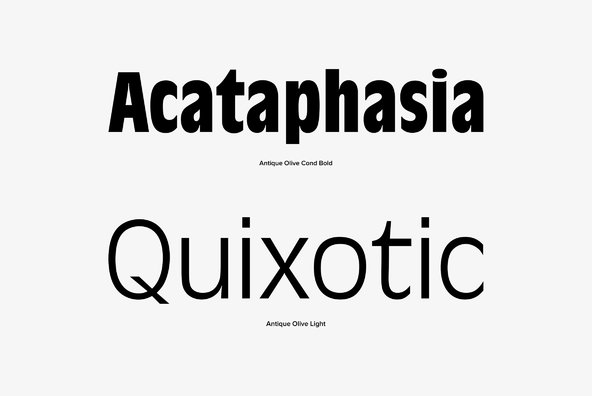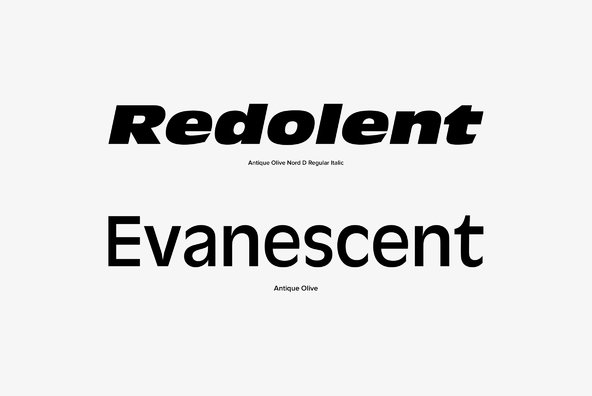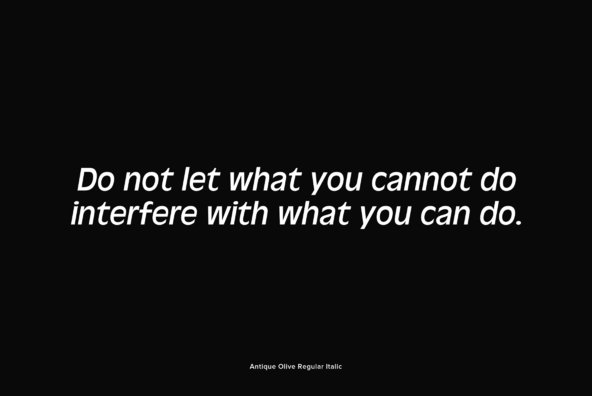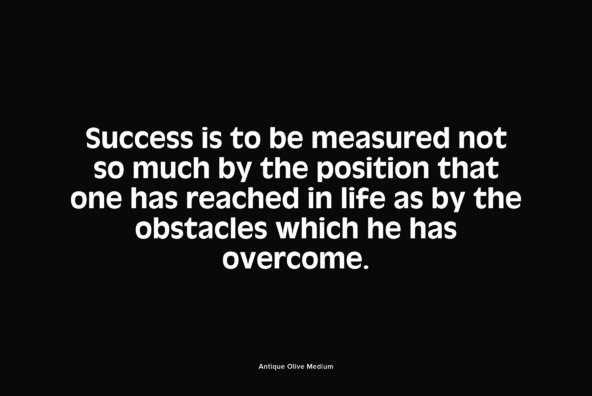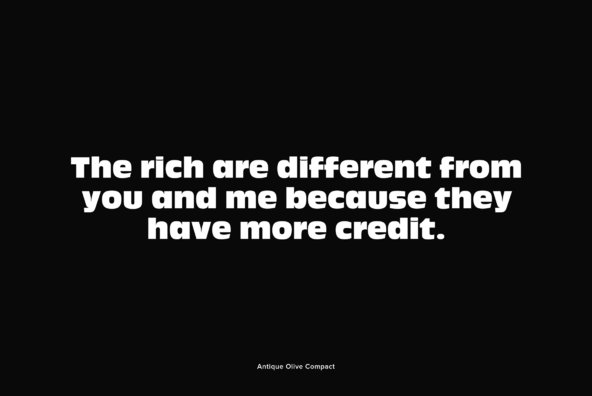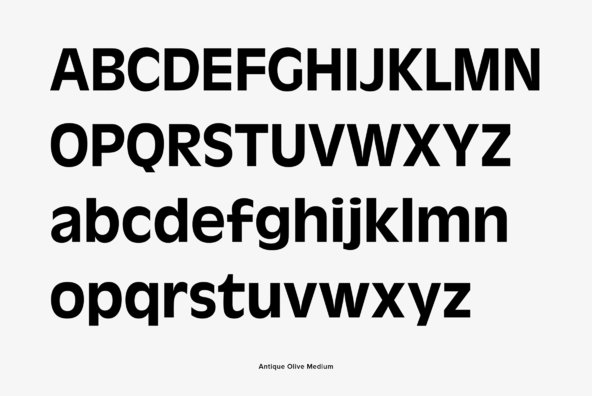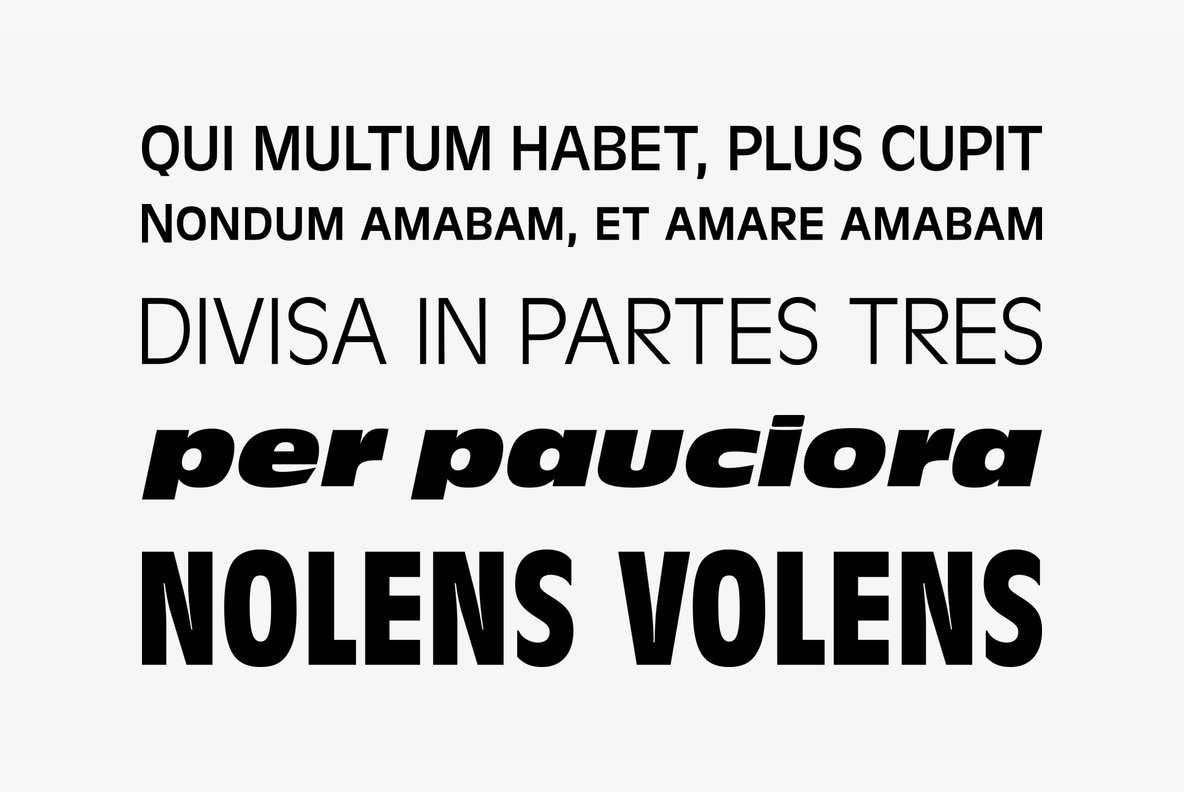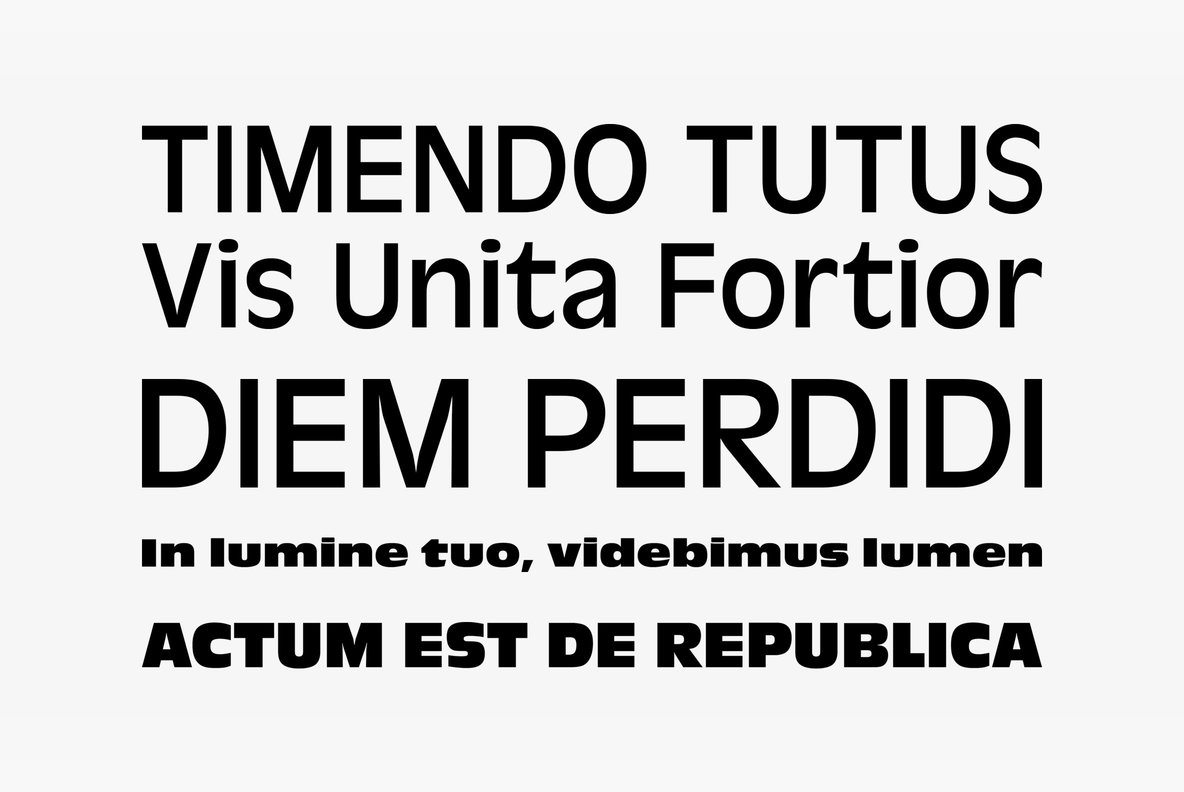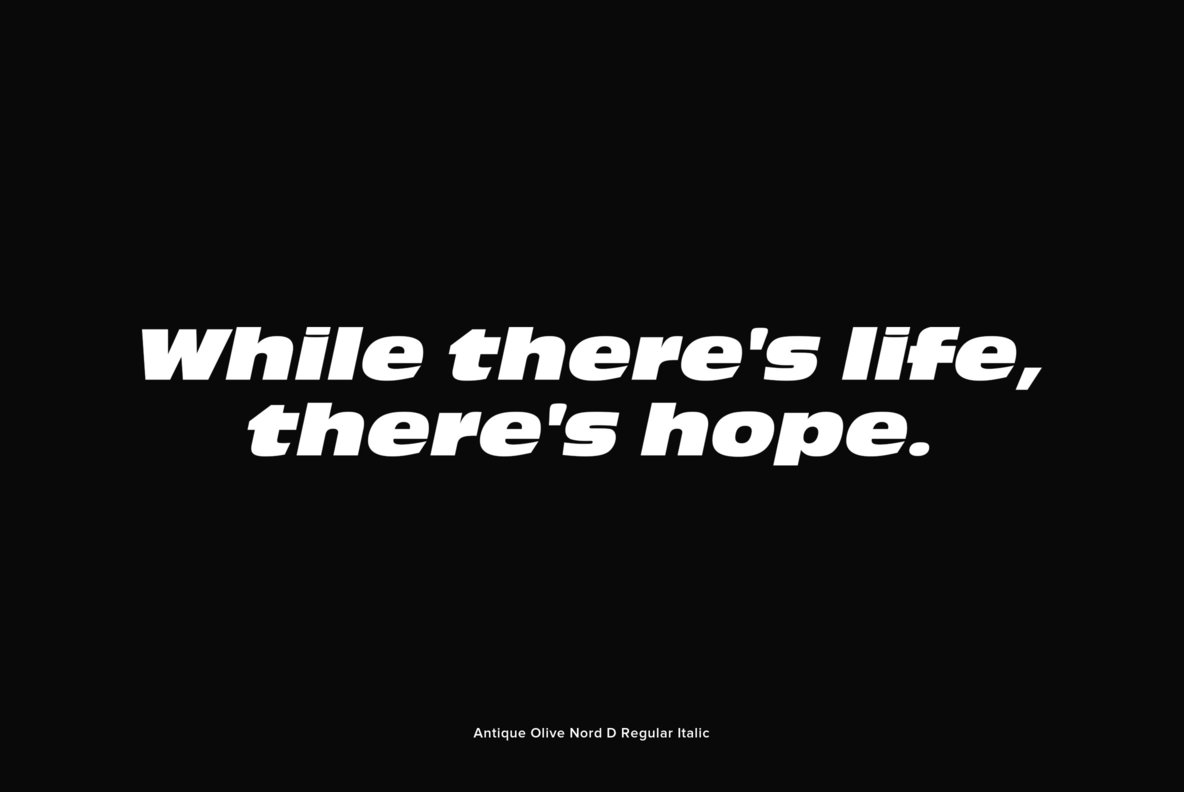
Antique Olive
Antique Olive, designed by Roger Excoffon in 1962 for the French Olive type foundry, was meant to be the French answer to Helvetica and Univers. However, the typeface is way too eccentric and distinctive to ever become a rival for Helvetica and Univers or any other neutral and versatile linear sans serif. Its x-height is very large, and there is plenty of contrast where curves meet stems. On top of that, the 's' seems to be upside down. These distinctive details make Antique Olive quite different from any pure linear sans serif. Sans Serif translates to Antique in French and so the name Antique Olive was found. Excoffon designed a new logo for Air France back then, and the lettering formed the basis for the complete Antique Olive typeface design. Antique Olive is still quite popular, obviously especially in France, although it is not that easy to set type with it. It is not really good for lengthy text copy but rather ideal for large headlines, ads, and posters. It can be set tight and even very tight without compromising legibility or optical quality. A company logo giving birth to the typeface design as well as Antique Olive's character shapes seem to make it particularly well suited for logos and letterings of that kind. Its advantages, namely its strength of character and its distinctiveness, are its disadvantages at the same time comparing it to Helvetica, Univers, and alike.